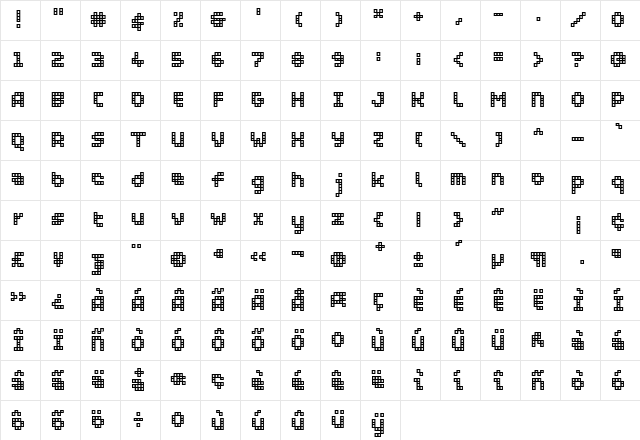
WC PIXHOLE Bta Regular
Foundry: WC Fonts
Designer: WC Fonts
WC PIXHOLE Bta Family
Design Context for WC PIXHOLE Bta
WC PIXHOLE Bta is a composed and adaptable typeface that performs quietly and consistently across a wide range of design contexts.